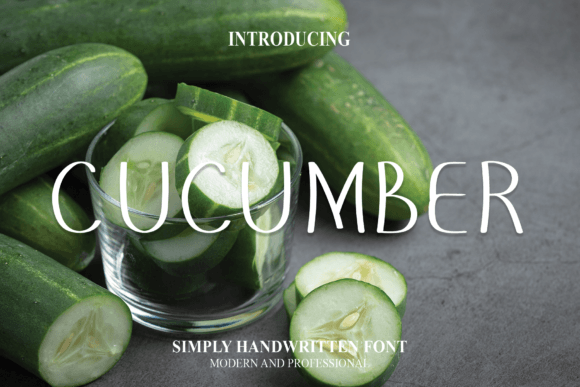
Discover the Refreshing Charm of Cucumber Font
Have you ever found yourself lost in a world of colorful papers, glue, and scissors, surrounded by the joyful chaos of a craft session? For many creatives, these moments are the spark that ignites their passion for design. And, for some, that spark may just be the Cucumber Font – a delightful handwritten font that adds a touch of whimsy to any project.
This charming font is perfect for crafting unique greeting cards, designing eye-catching presentations, or adding a personal touch to digital projects. Its friendly and approachable nature makes it an ideal choice for designers who want to bring a smile to their audience’s faces. Whether you’re a seasoned pro or a budding artist, the Cucumber Font is sure to become your go-to companion for all your creative endeavors.
Cucumber Font Key Features
- Font Family: Cucumber Font is a modern, elegant sans-serif font family designed for digital use.
- Unique Characteristics: Cucumber Font features a clean, rounded design with subtle flair, making it suitable for a wide range of industries and design styles.
- Character Set: Cucumber Font includes a comprehensive character set, covering Latin, Cyrillic, and Greek alphabets, as well as various punctuation marks and symbols.
Cucumber Font Review
I’ve had the chance to work with the Cucumber Font, and I must say it’s a unique and refreshing addition to any design project. Here’s my honest review.
- Playful and whimsical feel: The Cucumber Font has a charming, organic quality that’s perfect for creating a friendly and approachable atmosphere.
- Versatile typography: It works well for both body text and headings, making it a great choice for a wide range of projects.
- Easy to read: The font’s curves and rounded edges make it highly legible, even at smaller font sizes.
- Limited expressiveness: While the Cucumber Font is great for creating a lighthearted feel, it may not be the best choice for projects that require a more formal or serious tone.
- No bold or italic variations: The font’s design makes it difficult to create bold or italic versions, which can limit its versatility in certain situations.
Overall, the Cucumber Font is a solid choice for designers who want to add a touch of whimsy to their projects. While it has some limitations, its unique feel and versatility make it a great addition to any design library.
The Cucumber Font is a playful, cursive font that’s perfect for adding a touch of whimsy to your designs. Here are some tips for getting the most out of it:
- Use the Cucumber Font for titles, headings, and short paragraphs to add visual interest to your designs.
- Pair the Cucumber Font with a bold, sans-serif font for contrast and readability.
- Use the Cucumber Font in conjunction with illustrations or graphics to create a cohesive, playful design aesthetic.